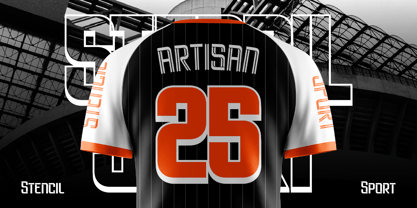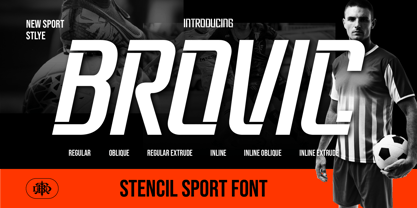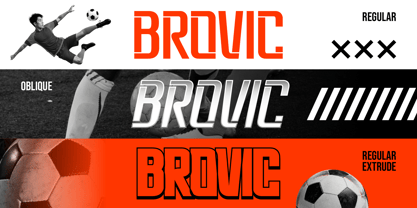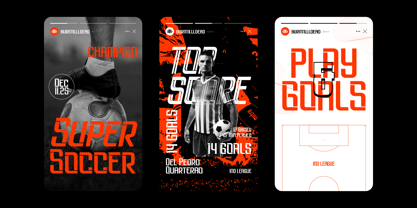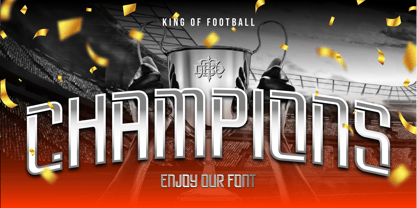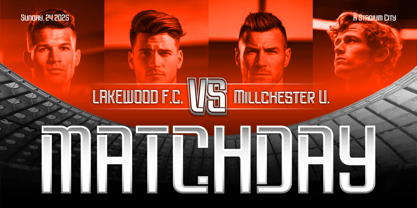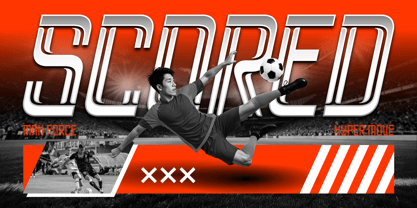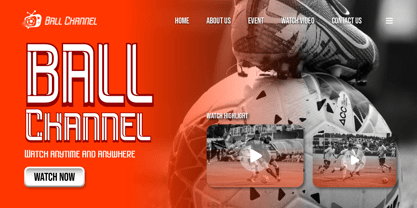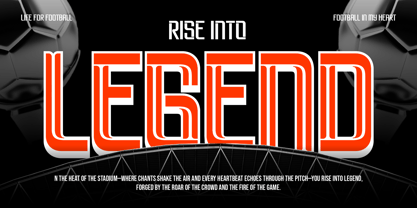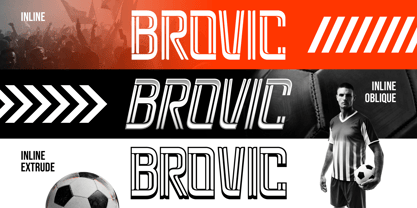
Brovic
by Burntilldead
The Brovic Font Family was designed by Eric Kurniawan and published by Burntilldead. Brovic contains 6 styles and family package options.
Meet Brovic, a font built for big moments and bold plays. Built with sharp lines, bold cuts, and a modern stencil style, Brovic brings that fast-paced football aesthetic straight into your design. Whether it’s jersey numbers, stadium banners, team posters, or esports branding this font delivers the intensity. Brovic comes with multiple styles (Regular, Oblique, Inline, Extrude, and more), making it super flexible for striking headlines, sporty graphics, and futuristic branding. Want something loud? Use the extruded version. Want something sleek? Go with Inline. Mix and match — the vibe stays strong. Features: A - Z set (Uppercase & Lowercase All Caps), Number, Punctuation, Multilingual